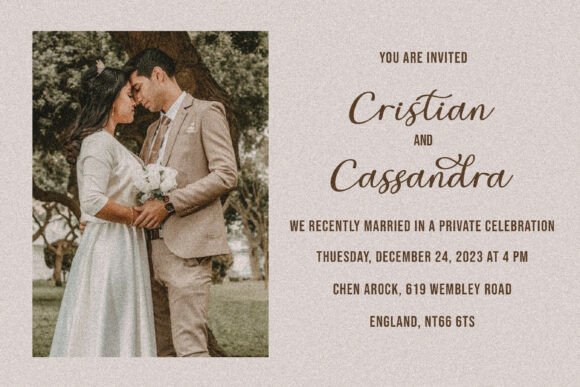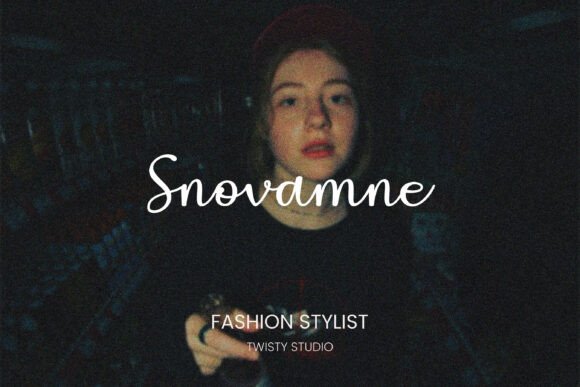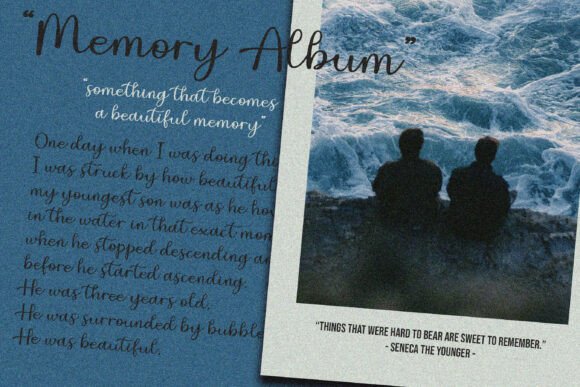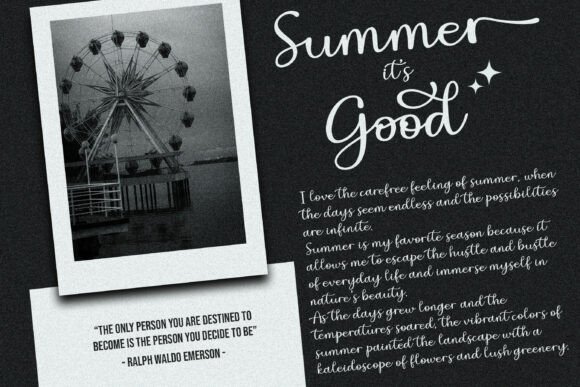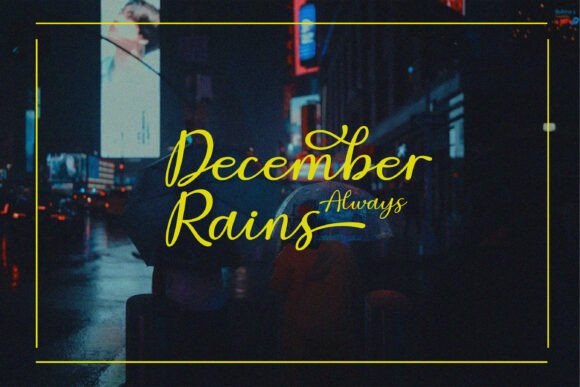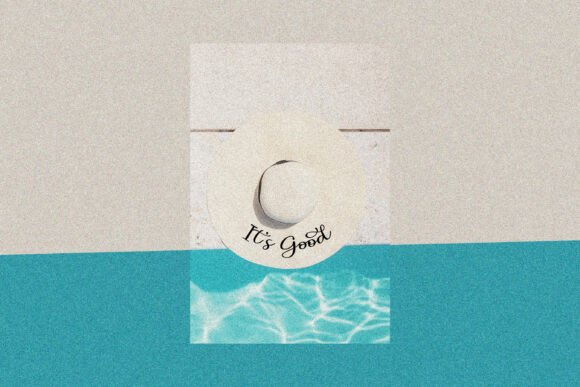
Introduction to Poschalis Font Font
Fonts play a crucial role in design, and the Poschalis Font font is a typeface that brings both character and versatility to any project. Whether you’re working on a branding project, a website, or a print design, the Poschalis Font font offers a unique style that can elevate your work.
Poschalis is a graceful and modern script font that brings a charming touch to every word.
With its smooth curves, elegant loops, and handcrafted feel, Poschalis radiates warmth and sophistication Perfect for wedding invitations, branding, quotes, logos, and lifestyle visuals, this font blends style with a personal, handwritten look.
Key Features of Poschalis Font Font
Why Choose Poschalis Font Font?
The Poschalis Font font is more than just a typeface – it’s a design tool that helps you communicate your message with style and clarity. Its unique character set and versatile design make it suitable for a wide range of applications, from elegant invitations to bold headlines.
With its carefully crafted letterforms and balanced proportions, the Poschalis Font font ensures readability and visual appeal across all mediums.
What makes Poschalis Font font special?
The Poschalis Font font stands out with its unique design, exceptional readability, and versatility across various design applications.